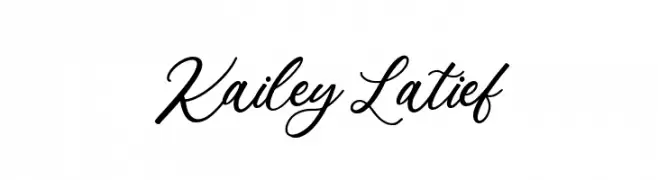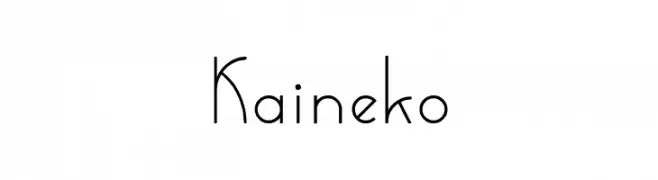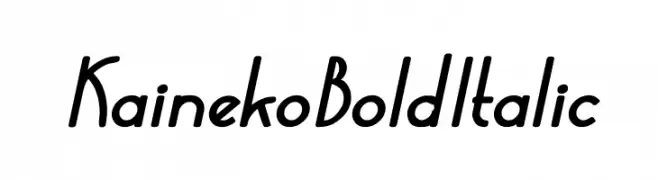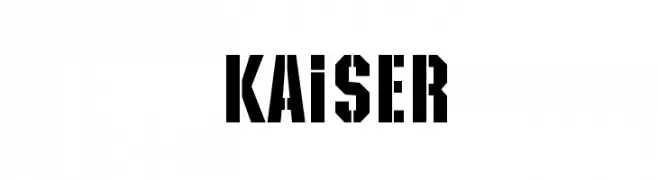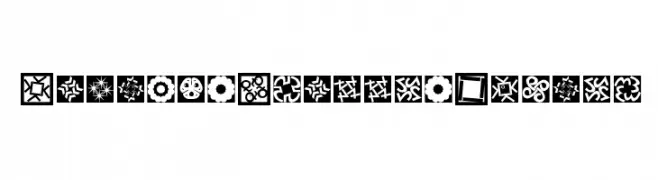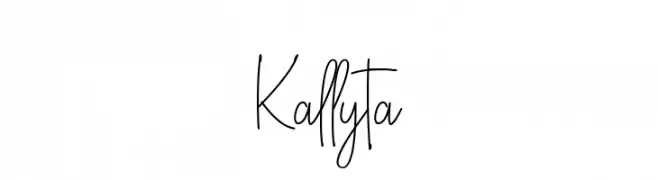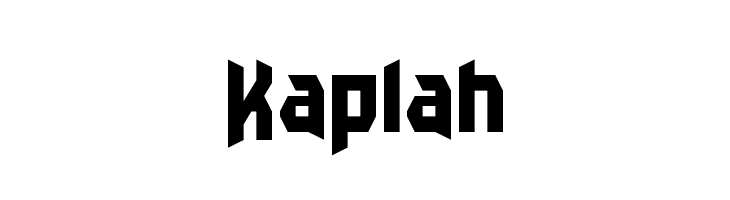
Elegant cursive script with flowing, interconnected strokes.
A sleek, modern font with thin, elongated letterforms and a condensed appearance.
A bold, italicized font with dynamic, playful characteristics.
A bold, geometric font with a modern, industrial style.
Ornamental geometric display font with kaleidoscopic motifs.
A playful, handwritten font with tall, narrow letters and flowing curves.
A dynamic and playful script font with a handwritten feel.
A bold, geometric font with sharp angles and a futuristic style.
A bold, rounded font with a modern and futuristic style.